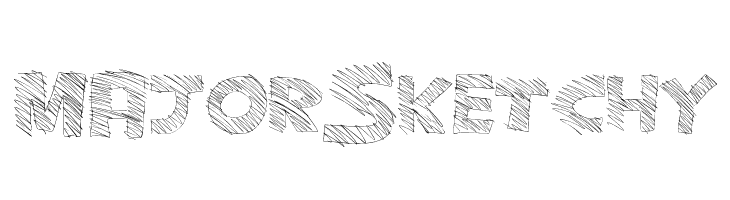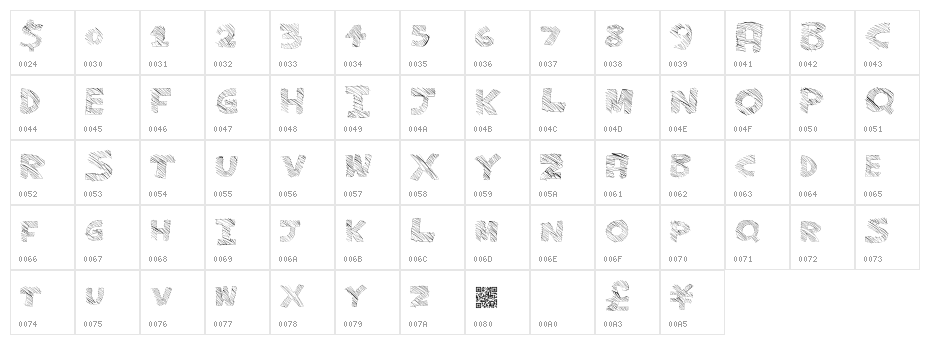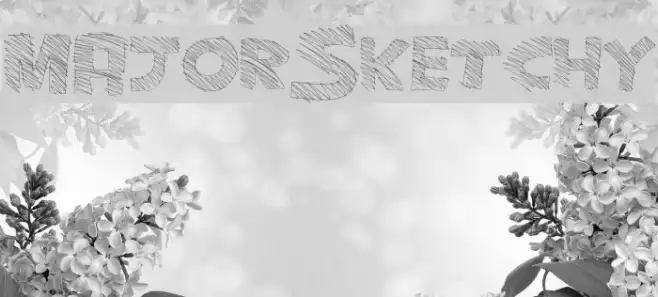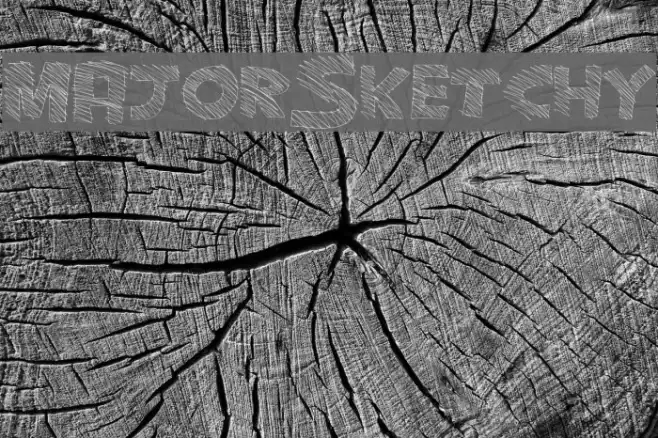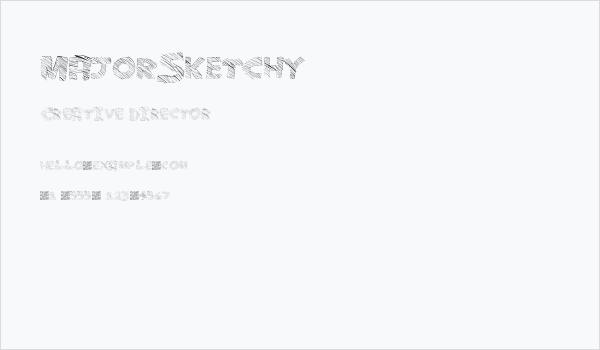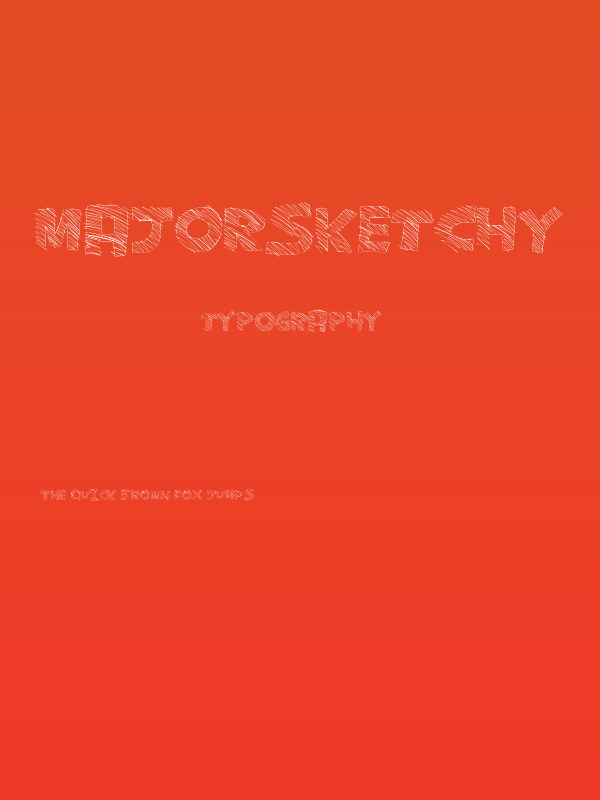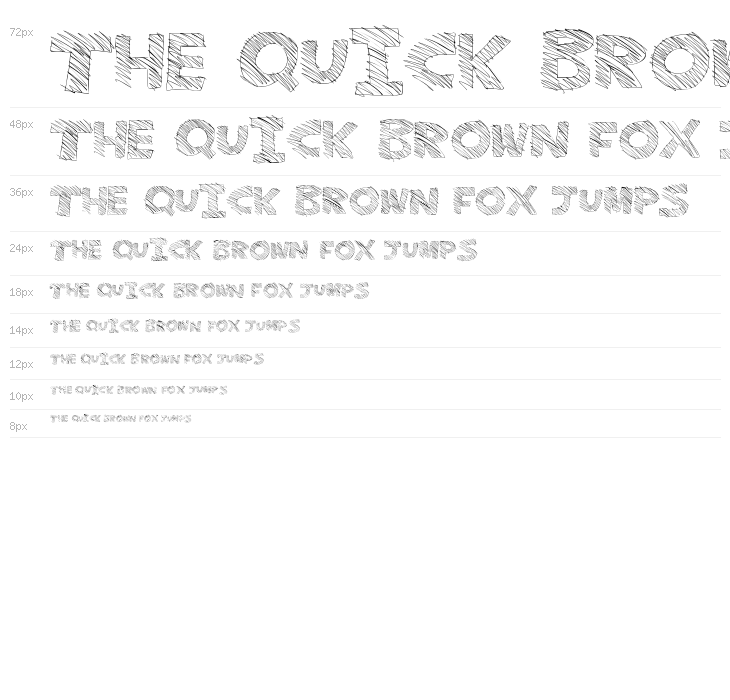
MajorSketchy Font
MajorSketchy Description
This font features a unique sketchy, hand-drawn style that gives it a playful and artistic appearance. Each character is composed of irregular, overlapping lines that mimic the look of a pencil sketch, creating a textured and dynamic effect. The uppercase and lowercase letters maintain consistent proportions, while the numbers and special characters follow the same sketchy design. This font is ideal for projects that require a creative and informal touch, such as children's books, comic strips, or artistic posters. Its distinctive style makes it stand out, adding a personal and handcrafted feel to any design.
| Overall Style | Artistic, Playful |
| Use Case | Headlines, Logos, Artistic Designs |
| Proposed Projects | Children's books, comic strips, artistic posters, creative branding. |